Sakura Internet FitFont Project
Collaborate with Nippon Design Center
In an effort to strengthen its brand on the occasion of the twentieth anniversary of its founding, Sakura Internet spent a year studying rebranding, and arrived at the motto “Change want-to-do into can-do” as an expression of its brand concept. To realize this concept, Nippon Design Center drew up a visual identity (VI) plan with a new logo and developed an original Latin character font. Type Project provided a Japanese font that was customized from TP Sky, together with a corporate font, “Haru TP”, which was created by combining that typeface with Nippon Design Center’s Latin character font.
Satoru Kawahara (manager of Technical Division UX Design Group at Sakura Internet), Tomoyuki Arima (art director of Nippon Design Center’s On-screen Design Division) and Isao Suzuki (Type Project) look back on the Haru TP project.
Kawahara:First off, we decided not to engage in centralized rebranding. It would have been easier being centralized because all we’d have needed to do was to implement the director’s decision, but that didn’t feel like a Sakura Internet way of doing things. I’m sure it takes time to cover all the aspects, from the new logo to everything else, but with our approach it all came together and was completed before we knew it. And just when I was wondering who we should turn to for our VI, I happened to attend a talk given by Arima. When he referred to a way of “Making use of logos in a non-fixed manner, in accordance with the situation,” I was really impressed by that flexibility and started up a conversation with him right then and there.
Arima:For a company in the IT industry, Sakura Internet struck me as being rather unusual. I had the image of them as decent, good people, which seems to be something of a rarity these days. I wanted to give shape to that in some way. I think it’s not just the quality of Sakura Internet’s infrastructure services that sets them apart, but the language with which they convey their intent in providing those services. And in order to bring out that uniqueness, whether it’s on the control panels of Sakura Internet’s servers, its event T-shirts, the signage at its data centers, or in all its printed materials, I felt that their in-house designers needed to have the right tools.
This was the starting point for the Sakura Internet rebranding project, which included the development of a Latin character font. When carrying out rebranding or VI, it’s generally the case that you have all the logos, signage, business cards, websites, catalogs and the like ready in time for the announcement date of the new brand. But Sakura Internet’s request was “Start with internal branding, and then let it gradually become visible outside, as if it’s emanating from us.” Instead of continuing to be selected for its functional value, to become the users’ choice because of its emotional value. That is what Sakura Internet was aiming for.
Arima:I felt that a typeface would be the right solution, as a tool for making things that would exude Sakura Internet’s uniqueness from various vantage points. The order we received from Sakura Internet was that, if we were going to create a typeface, regardless of what kind of typeface we chose, they wanted one in which the さ (the hiragana character for the “sa” in Sakura) had three strokes. And the reason for that request was that さ has three strokes when written by hand, not two. When I heard that, it occurred to me that I should make a Latin character font. Because expressing the feel of human handwriting in a font is something that Latin characters and some kana characters can do. I knew for sure that they could convey the originality of the company.
Kawahara:I hadn’t imagined having an original font made for us, and it sounded unexciting. Actually, I’d been thinking that just getting a logo seemed rather trivial as a new tool. We have a lot of situations where we use text, in pamphlets and such, so I thought it would be wonderful if we could incorporate Sakura Internet’s uniqueness into the type itself. I had the feeling that the typeface could act as a key that links our home pages, advertising fliers, control panels and data centers. “A typeface is a voice” – on hearing that statement by Suzuki, that feeling I’d had grew stronger, and I decided to get a custom-made typeface. Sakura Internet places emphasis on diversity and freedom. While there is the approach of determining the exact logo and color, and then going about applying it in a standardized way, I felt that such an approach would run counter to our idea of diversity. It seemed to me that standardizing the typeface would allow us greater freedom in our use of color and other aspects.
Arima:A brand gains a great deal of depth with the presence of the three key points of logo, color and typeface. We gave it a color palette with priorities 1 and 2. In the world of Web design, there is a framework called Bootstrap that contains various easy-to-use components, such as forms and buttons. There was an atmosphere in this project of building that sort of toolkit. So we proposed it by saying, “If we’re going to do a corporate font, it should be a FitFont.” Because they had previous examples, and there isn’t anyone else who offers similar services.
Suzuki:I think of the font’s role as being like that of shoes or chairs – it has that kind of functionality as a product. What’s interesting about a font is that while we don’t think about making it as the final goal, we can see how it’s used and how it takes on a suitable form and voice, and that gives meaning to the work. It truly is a tool. With Haru TP, though we didn’t customize that much of the Japanese typeface, it felt like an effective, new approach.
Arima:Our way of doing things is always to make proposals that are complete opposites of each other, and then to work through them together and arrive at a decision. For this project, we proposed four patterns – in Gothic, Mincho, Slab serif and Tapered sans-serif – and the final decision was the Tapered sans-serif, because of its handwritten feel. Making an actual visit to a data center reaffirmed for me that while this was a brand at the forefront of the digital realm, rather than giving off a sense of coldness, it had a human warmth. So, I wanted to make a typeface that would convey that, and wondering if there were any suitable, up-to-date tapered Japanese typefaces, I reached out to Suzuki.
Slab serif: a robust serif with uniform lines
Tapered sans-serif: a sans-serif with narrow stroke ends
Suzuki:I felt that Arima’s trial version of the Latin character font and the impression I had of his kind-heartedness in interacting with Sakura Internet were both highly compatible with the personality of TP Sky, and even though the typeface was still under development, I went ahead and showed him the designs for TP Sky. As we were still about a year away from its completion, I hesitated for quite some time as to whether or not I should show it. But I knew this typeface would be the better choice, so I couldn’t keep it under wraps. (Laughs)
Kawahara:At first, I was thinking of choosing either AXIS FitFont or TP Mincho FitFont. But I looked at them together with Arima’s Latin character font, and I had the sense of something being a bit out of place. And then I had a look at his design for TP Sky, and thought, “This is it.” I could relate to the idea of it being Gothic but with a handwritten feel, and I remember being amazed by the lucky timing.
Arima:There were two things I wanted to achieve with the Latin character font. One was a data center countermeasure, to prepare alternate character forms for the lowercase “I” and the numeral “0” (so as to make them easily distinguishable from the numeral “1” and the letter “O”). The other was to increase the x-height (to raise the center of gravity of the lowercase letters). As Sakura Internet is expanding into the IoT realm, instances of low resolution printing are to be expected. The typefaces we will be producing from now on will be used in all manner of places. They might even be used in satellites up in space! (Laughs.) So I wanted to make something with clearly distinguishable lowercase letters. I actually altered the Latin character font (mainly the contrast parts) after seeing the design of TP Sky.
Suzuki:Arima’s design of the Latin character font had the x-height set quite high, and I had the sense that it had been made with an awareness of difficult applications – for example, to allow for good readability with business cards and other situations where small characters are used, such as the detailed information on cut-out stickers and the like. While Latin character x-height may correspond to Japanese character “counter level”, when it comes to Japanese fonts, setting the counter too large will make the character space narrower, which results in a somewhat cramped feeling. That’s why the counter for TP Sky isn’t very large. The thing that was difficult when developing TP Sky was the possibility that Japanese characters created using this font category – the tapered sans-serif – would feel old the moment one saw them. So, to make it up-to-date. And to make it settable for text. These are the two things I was really focused on with TP Sky. It’s one of the most challenging typefaces I’ve ever created.
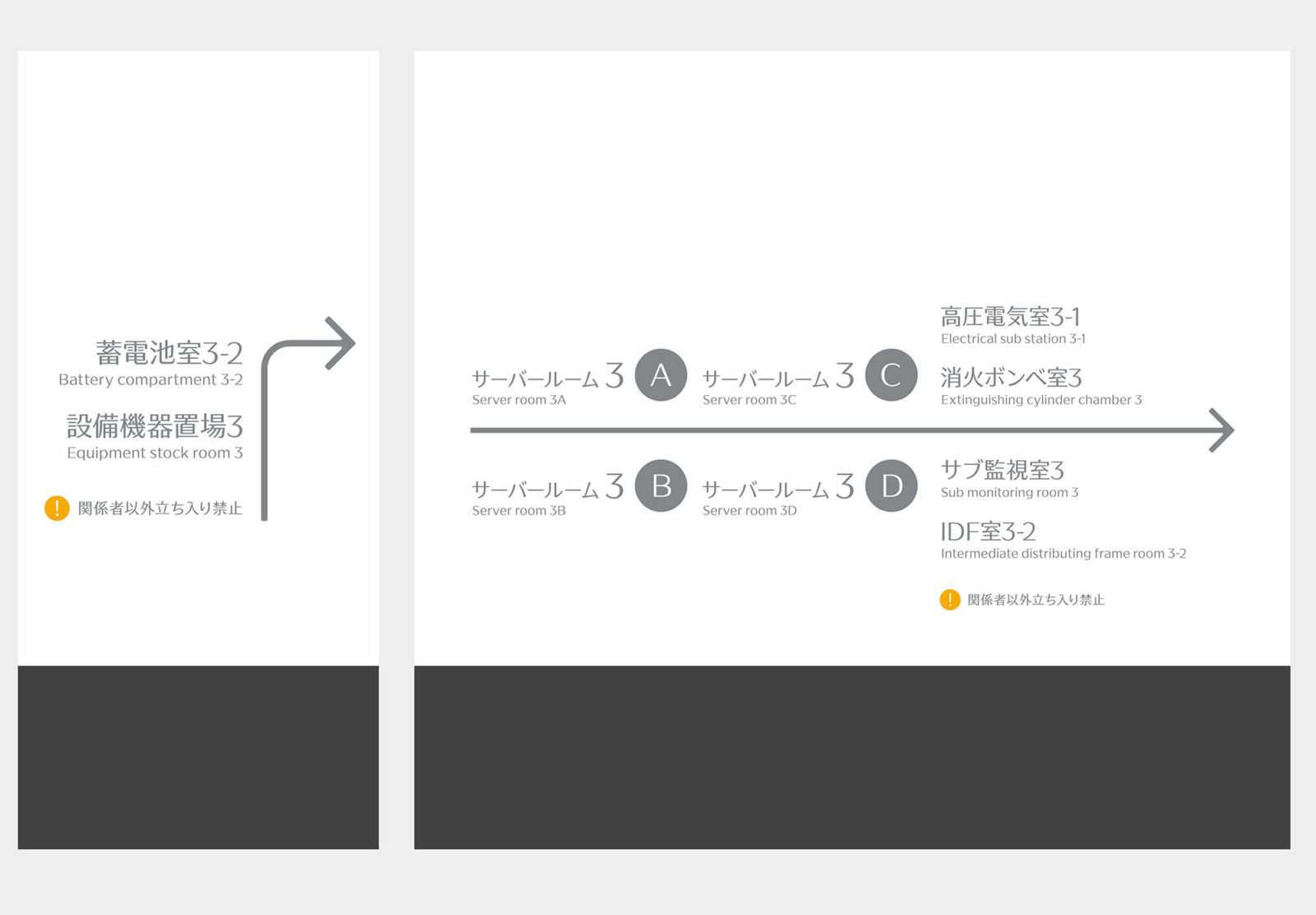
Arima:The first time I saw TP Sky, I was amazed. It doesn’t get old. I think of it being like James Bond movies, which are a kind of battle with oldness. There’s the sense that the model is preventing it from evolving. Even so, the latest 007 is really good. TP Sky seems to me quite similar. It’s gotten past the dilemmas of an area that everyone seems to have been avoiding. I have some confidence that it’ll be put to good use in the future.
Suzuki:I guess it’s a worldwide trend with Latin character fonts, but over the past three or four years or so, a lot of high contrast fonts have been coming out. It seems to me that with so much sans-serif around, there’s the sense that everything starts to lack depth.
Arima:Yes, I feel that too. With all the new possibilities available to us, we can play around with things as much as we want, but it does feel that in the realm of Latin character design, the same trends have already come around again once or twice. They’re just barely managing to avoid the parts that feel old. Maybe it’s the current of the times. But if you stop thinking, you end up making compromises, and I wanted to go beyond that. So, in that kind of deep way, I was really glad to be able to get on the same wavelength with Type Project.
Suzuki:In typeface development, we think up new things, like hybrids for example; but when we make them, they tend to be kind of difficult to use, or maybe cool-looking but hard to relate to. So the important thing is to find places where the typeface fits perfectly. This is especially clear with corporate fonts. Each company has its own history and character, and the voices and faces that embody that will be expressed through the typeface. I think of the き (“ki”) and さ (“sa”) and other hiragana in this typeface as conveying a human warmth. In many movable type fonts, the first and second strokes of さ (“sa”) are connected, and I was aware that there are people who that feels strange to. There’s a similarity between the act of writing by hand and one’s voice, and through this project I became aware once again that a font’s character emerges together with what makes it unique to its product.
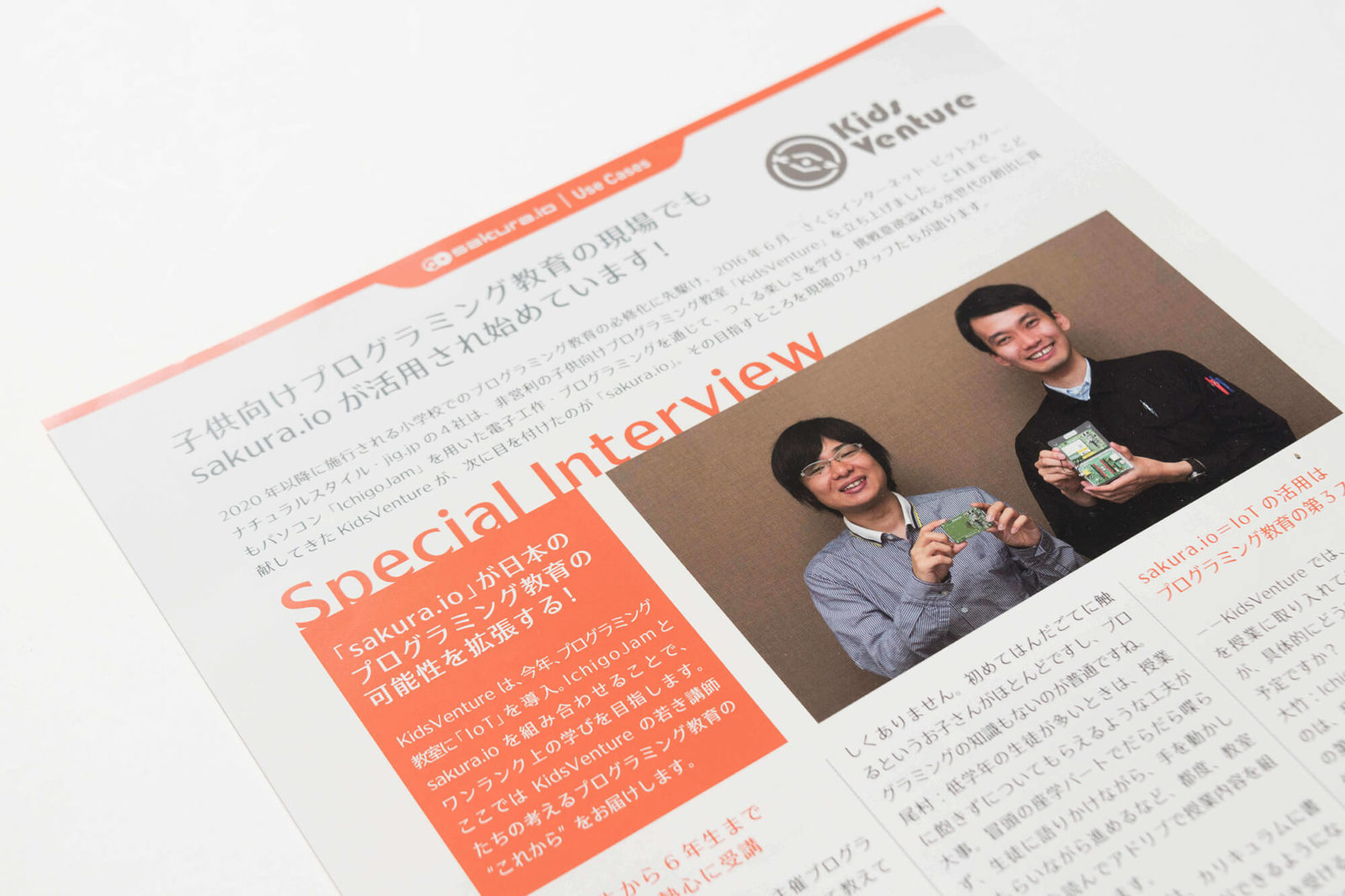
Kawahara:When I saw Haru TP, I thought, at last we’ve got something that fits the ideal of being modern but specialized. One of our preconditions was that it had to be clean and attractive on the Web, and when I saw it on a digital monitor, I was really impressed by its beauty and crisp clarity because it was exactly the image I’d had in mind. Working with a pretty font gives motivation to our in-house designers.
Suzuki:Screen attractiveness was one point that we emphasized in the development of TP Sky. When I’m working on typeface production, I tend to superimpose typefaces I’ve made in the past and gauge my feeling of distance between it and other typefaces I like. Will someone who doesn’t have that kind of filter tell me that it’s beautiful? That’s the part I was concerned about most of all. It makes me really glad whenever someone can appreciate this aspect, and I hope that all Sakura Internet users will feel this way. Another concern I had in mind when creating this typeface was that it should be something one will never grow tired of. I felt very strongly that one should be able to look at it every day, and still be impressed by how nice it is.
Arima:The full-fledged usage of Haru TP is still to come. It’ll start on the Web. The design of the business cards and signage is just about final. The signs are easy to read even from far away. I think it’s a really tough usage environment for a typeface – on the Internet, in printed publicity materials, and data centers, too. So it was a relief to see TP Sky being put to use there.
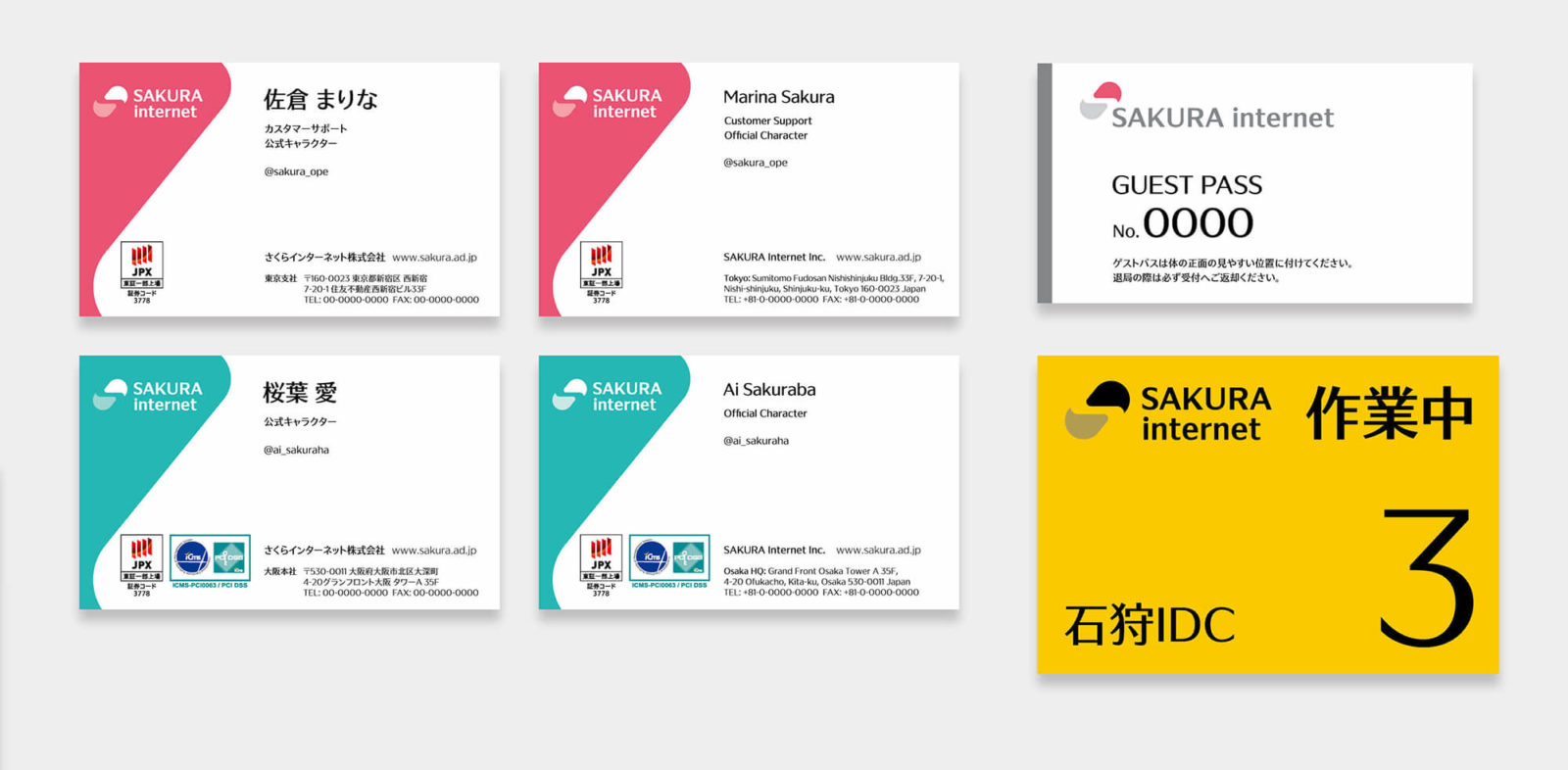
Suzuki:Typeface design has two opposing functions with regard to distance: retaining each character’s internal integrity at small sizes, and being readable even from far away. I’m calling TP Sky a modulated sans-serif, and I thought that what really needed that category of font was the signage. I think of modulated sans-serifs as giving form to the liveliness of handwriting, to the natural fluctuations in forcefulness of the human hand. I felt this way again when I was shown the actual-size signage design. And what I had made with the intention of having characters that would be appealing at large sizes without losing their personality, I was surprised to find was also fine for use in small sizes, for business cards and the like.
Arima:To draw out the local optimum of the site, without being too rigid about the rules. I suppose this is very Japanese approach to branding. Once your way of doing things is in order, you can get approval from those around you. That’s what the tools are for. I think that when you’re engaging in branding work, the best situation is when you can use things just as they are. Each person’s attractiveness can come out just as it is, without any adornment. There’s not much point in putting on nice clothes only when you’re going out on a date – it’s that kind of thing. This is consistent with the work we do for any business. The task of design, in this world of constant over-interpretation and loud declaration, is to be able to present a person or company, and convey in an entirely normal way how interesting they are. We are always looking for things that are unchained from the medium, that go beyond it. And our greatest resource is our typefaces.
Kawahara:Another part of our brand concept is “Keep taking challenges.” We spoke about making proactive and challenge-taking choices as we go about deciding our VI. One of these was the choice of a typeface that was neither Mincho nor Gothic. This typeface came about as a result of accepting that challenge, and I think it was a good choice.
Suzuki:Even if it had been made somewhere else and with different expectations, as it something that was connected at a basic conceptual level, with just a few adjustments it would still behave as a single typeface. The finished product looks totally natural, but this certainly was a project that had experimental values.
Arima:It was a good challenge for all three of our companies.
Kawahara:Making this choice taught me that technology is a necessity for typeface development. Sakura Internet is a company that lays emphasis on technology, so that’s another reason this was a good fit. More than ever, I am glad that we treated the typeface as key.